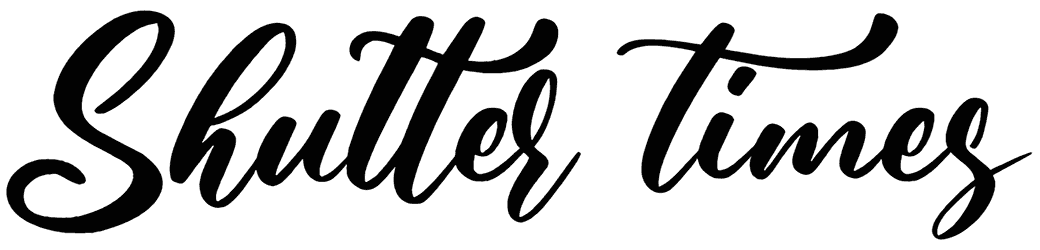
Shutter Times Font
Finding the right script font for design can seem like a daunting task, but RB is here to help you out by providing you with a handy cursive font to utilize in your writing. Using the Shutter Times font, you may create provocative works of art.
Because of their curves and romantic style, these letters are perfect for making a feminine and friendly feel. Diplomas, official documents, and even photo overlays can all benefit from this type of design flexibility.